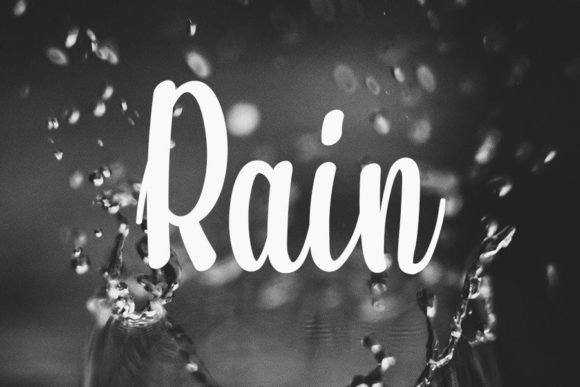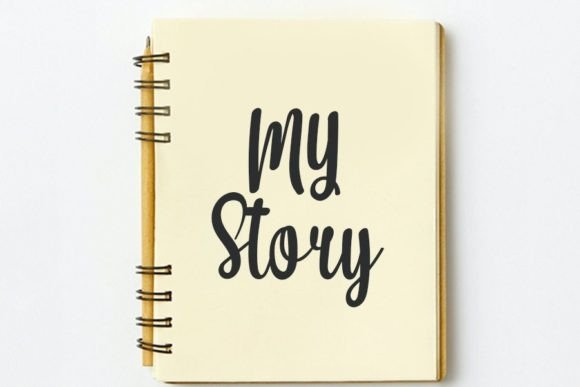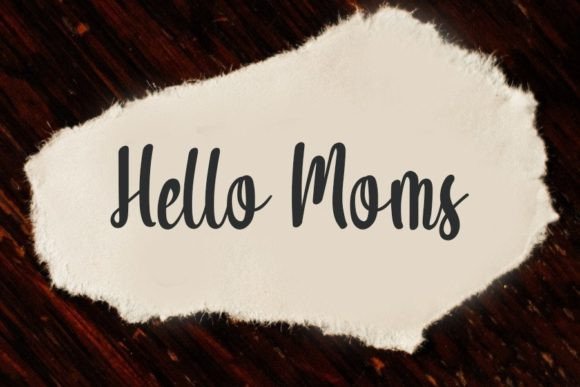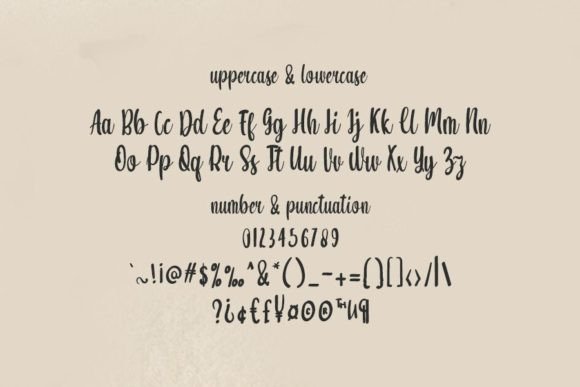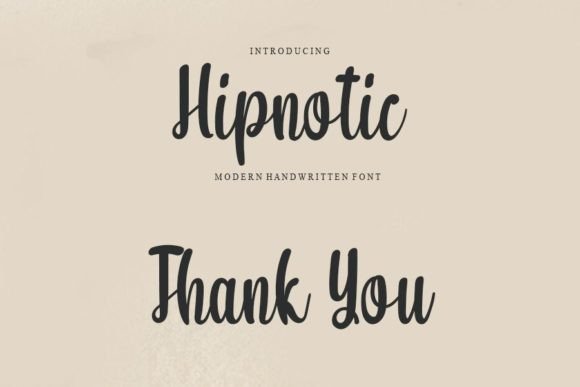
Introduction to Hipnotic Font
Have you ever stared at a blank canvas, waiting for inspiration to strike? That’s exactly what happened to me the other day, as I was brainstorming ideas for a creative project. I wanted to add a touch of elegance and sophistication, but nothing seemed quite right. It wasn’t until I stumbled upon the Hipnotic Font that everything clicked into place.
The Hipnotic Font is a stunning, modern handwritten font that’s perfect for designers looking to add a personal touch to their projects. With its spotless form and balanced style, it’s no wonder this font has become a go-to resource for designers seeking high-quality typography. Whether you’re working on a design project or simply want to enhance the beauty of your digital creations, the Hipnotic Font is an invaluable asset.
What sets the Hipnotic Font apart from other design resources is its versatility. It can be used on a transparent background or paired with a solid color, making it an ideal choice for a wide range of creative projects. And the best part? It’s available for free download, making it accessible to designers of all levels.
Key Features of Hipnotic Font
- Unique, hand-drawn design with a psychedelic twist, perfect for creative projects
- High-quality font with a transparent background, ideal for designers looking for a design resource
- Includes a range of glyphs and characters, making it suitable for various creative projects, from logos to typography
- Perfect for designers who want to add a touch of whimsy and creativity to their projects
Honest Review: Hipnotic Font
I recently stumbled upon the Hipnotic Font, a design resource that caught my attention for its unique and quirky aesthetic. As a designer, I appreciate high-quality fonts that can elevate a creative project. The Hipnotic Font does just that.
Here are some things that work well with this font:
- ✨ Unique design: The Hipnotic Font has a distinct, hand-drawn feel that sets it apart from other fonts.
- ✨ High-quality design: The font is well-crafted and looks great at various sizes.
- ⚠️ Limited character set: The font may not have as comprehensive of a character set as some other fonts.
- ⚠️ Not suitable for formal projects: The Hipnotic Font is better suited for creative projects and may not be the best choice for formal or professional applications.
Overall, I’m impressed with the Hipnotic Font and think it’s a great addition to any designer’s toolkit. Its unique design and high-quality craftsmanship make it a valuable resource for creative projects.